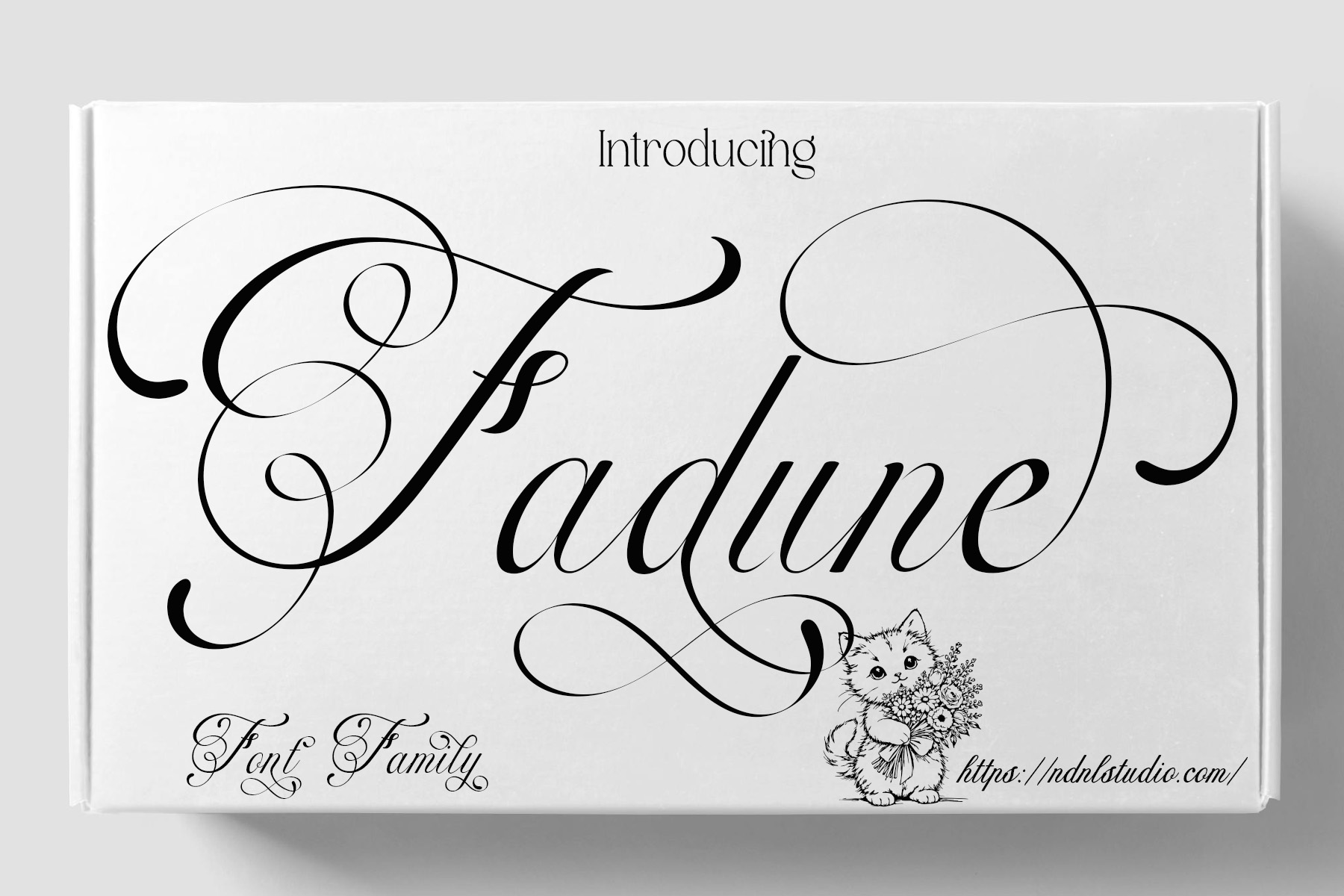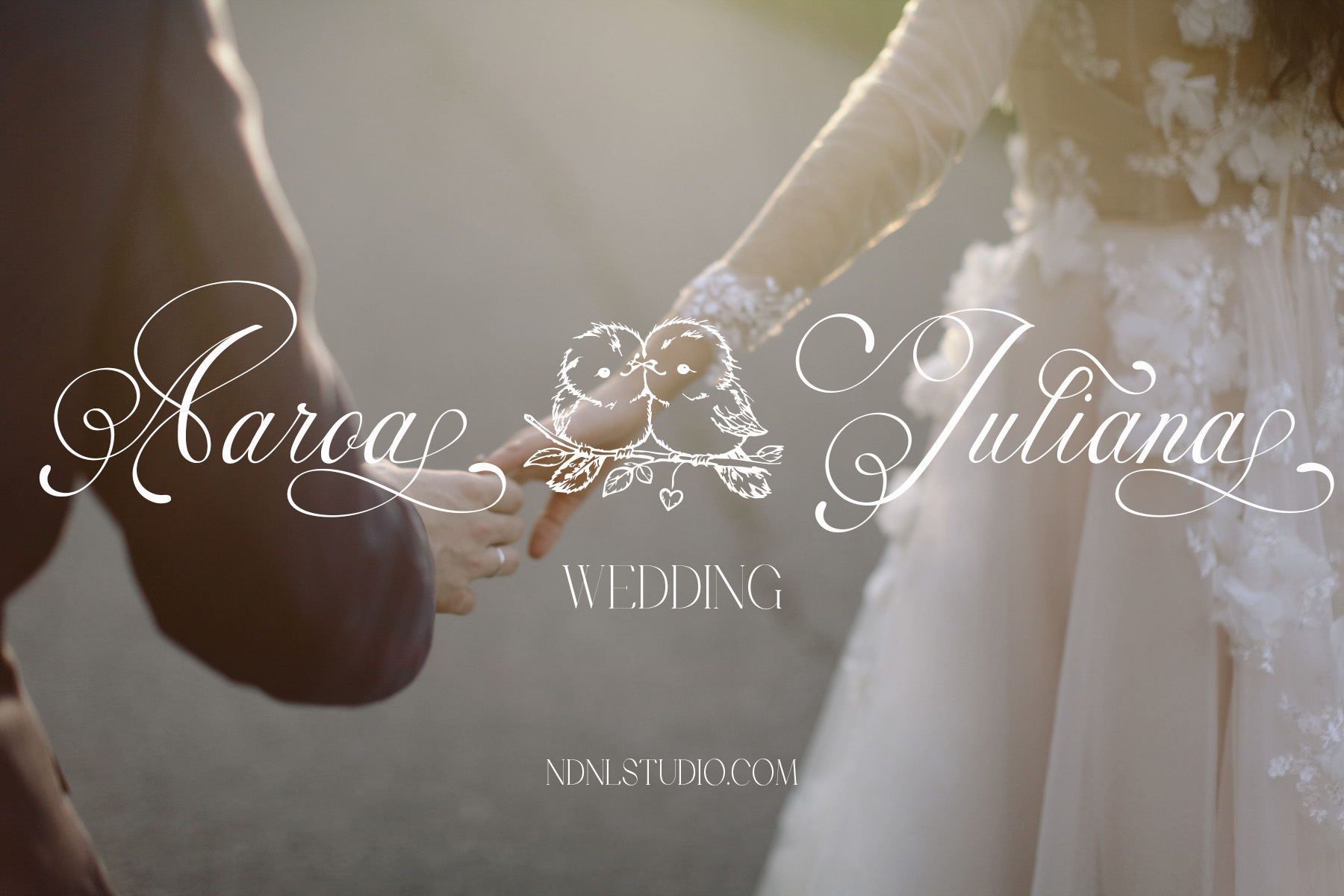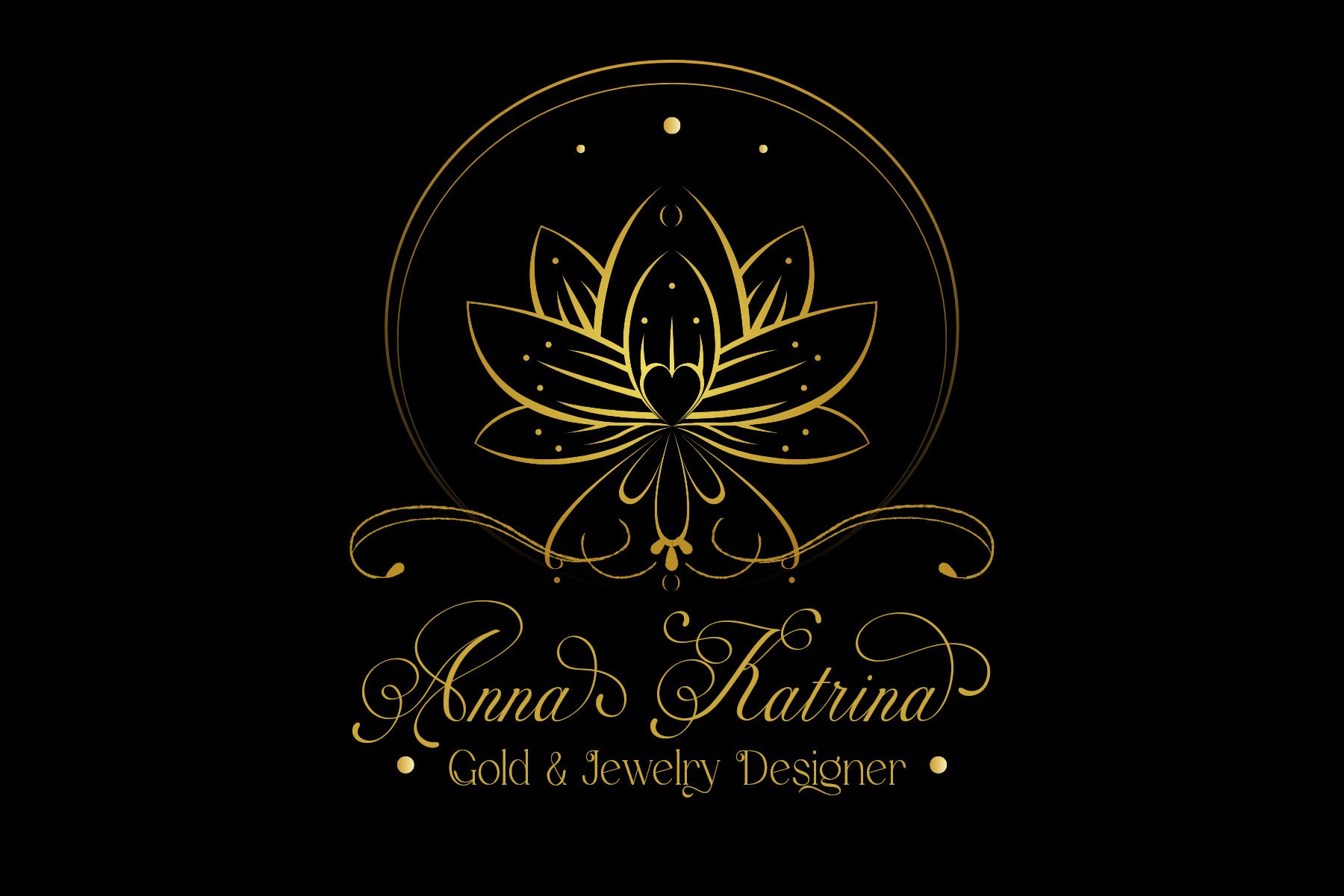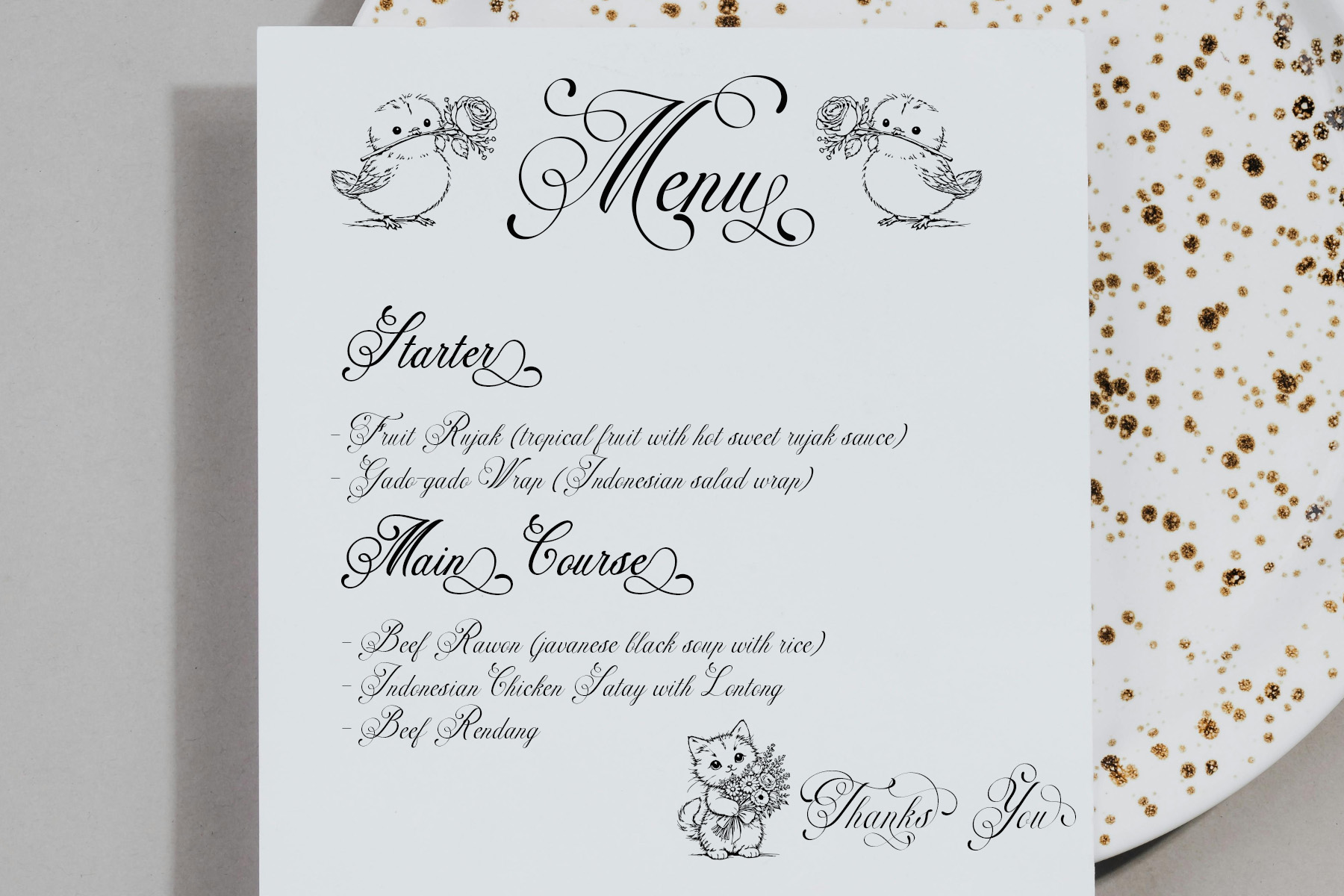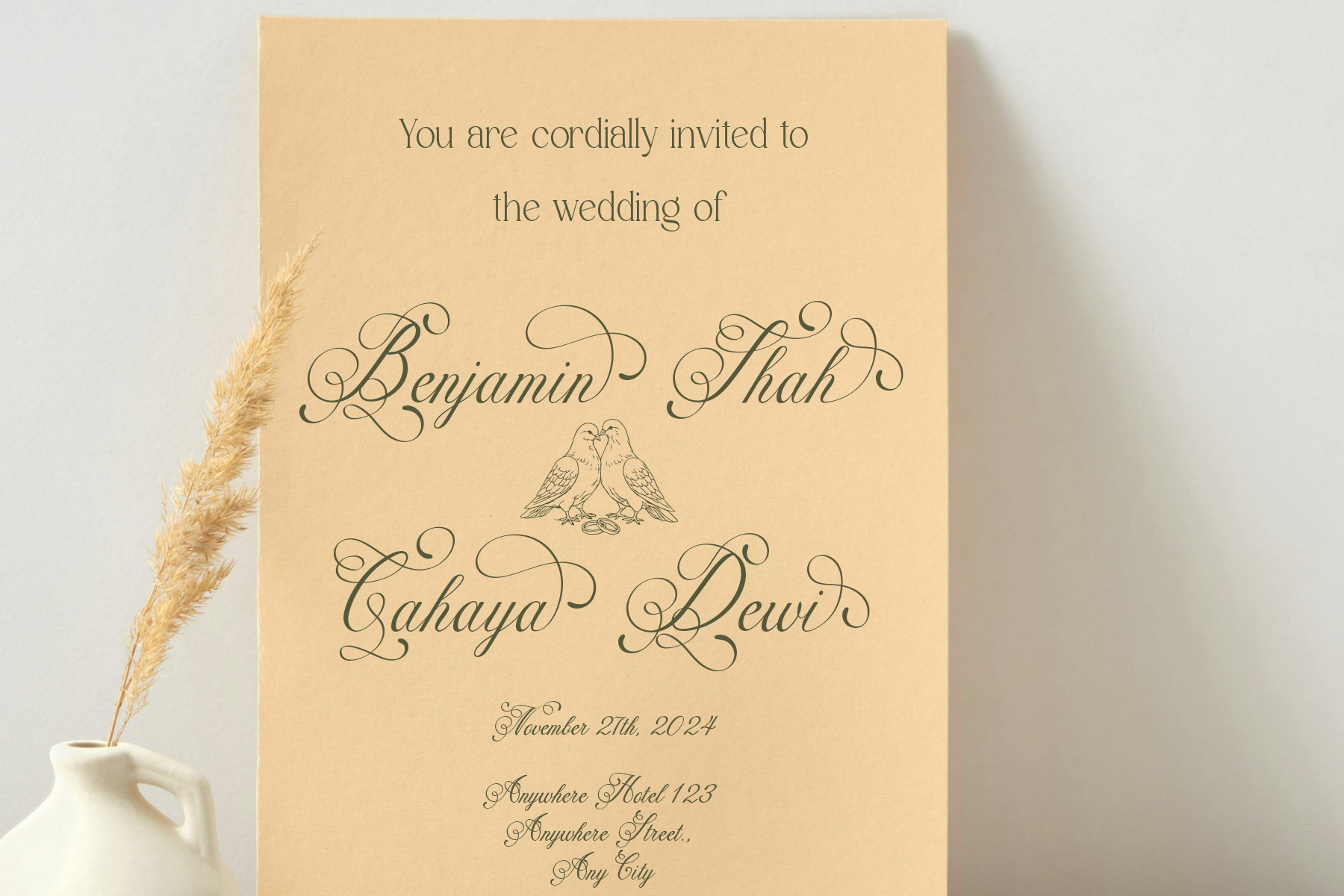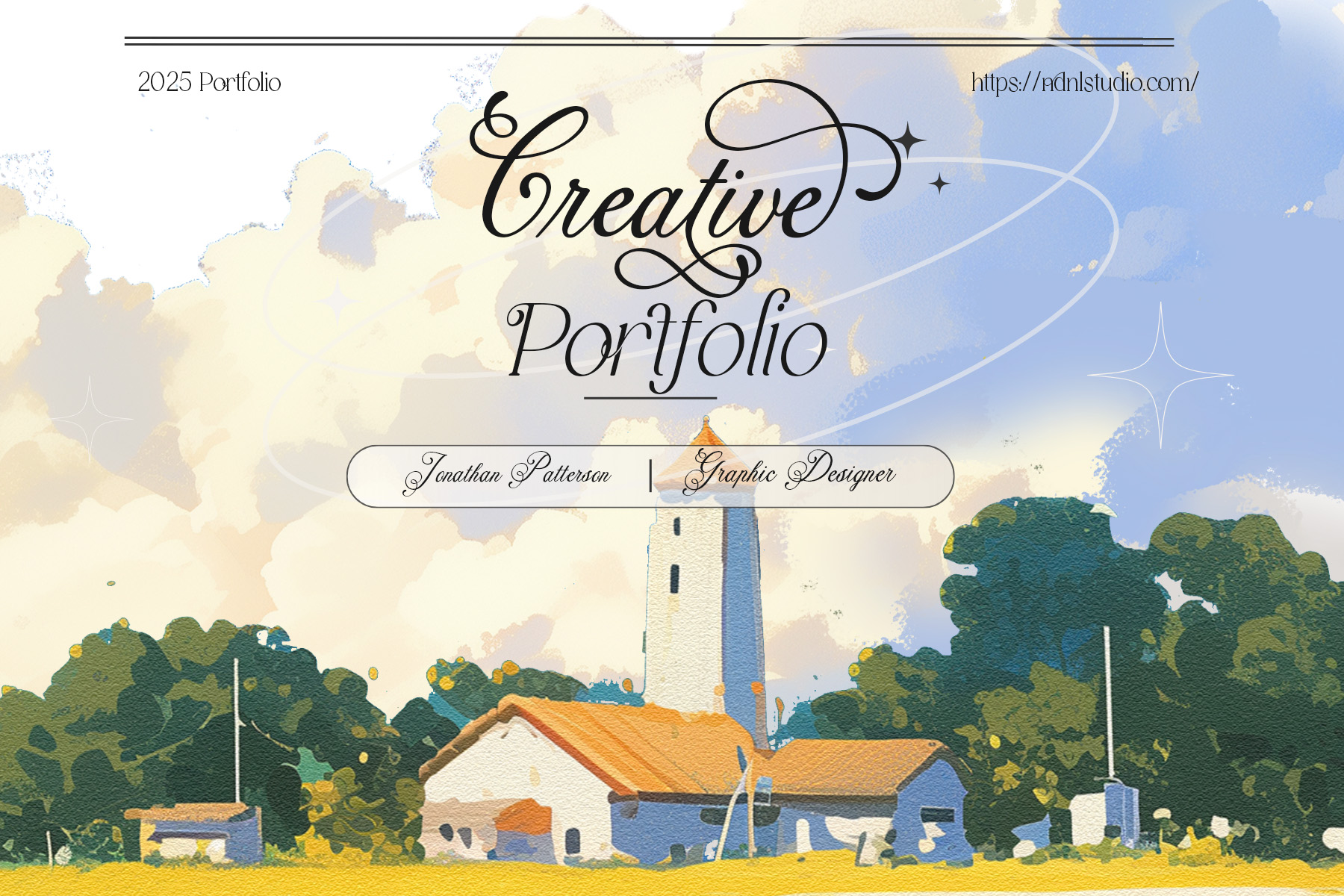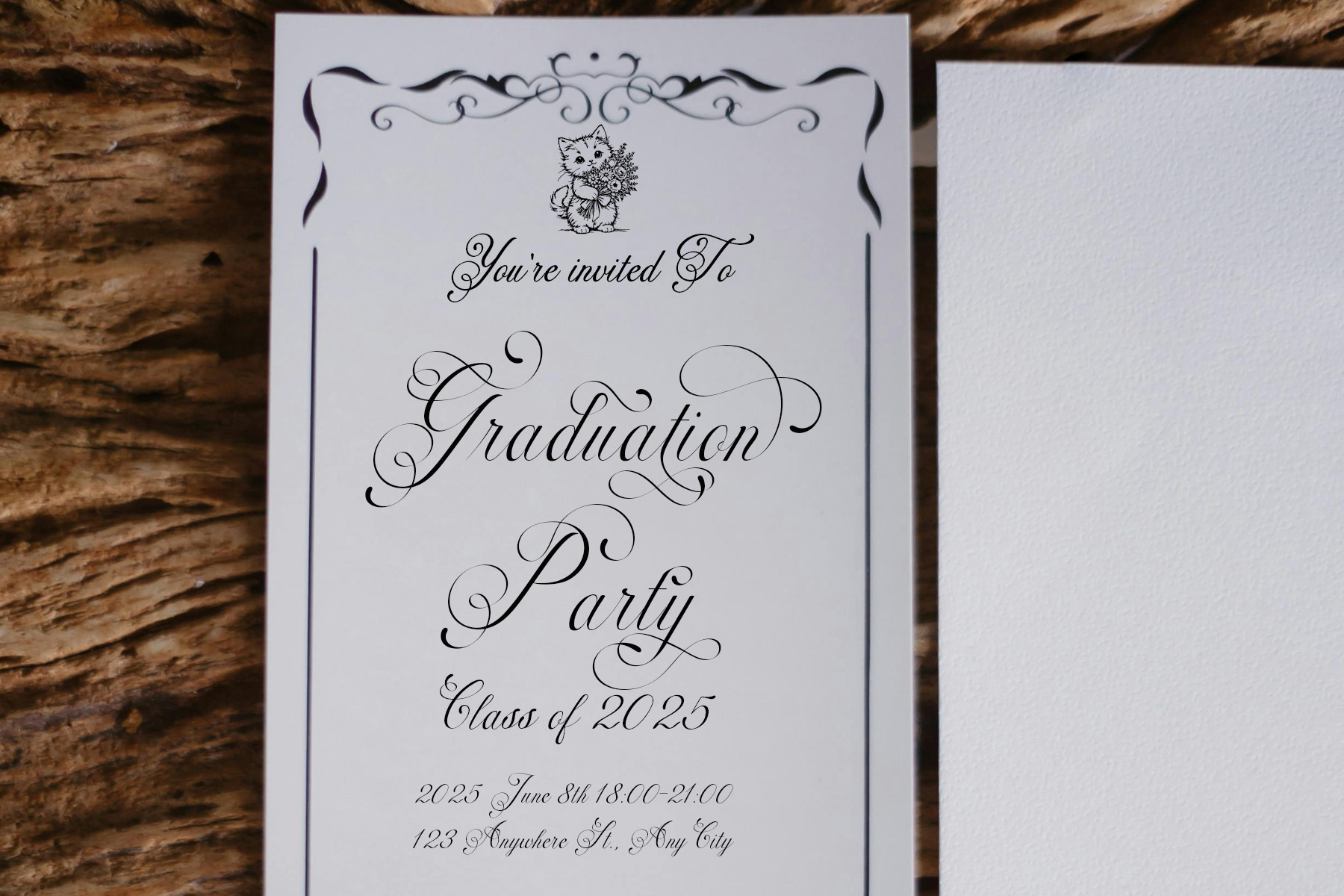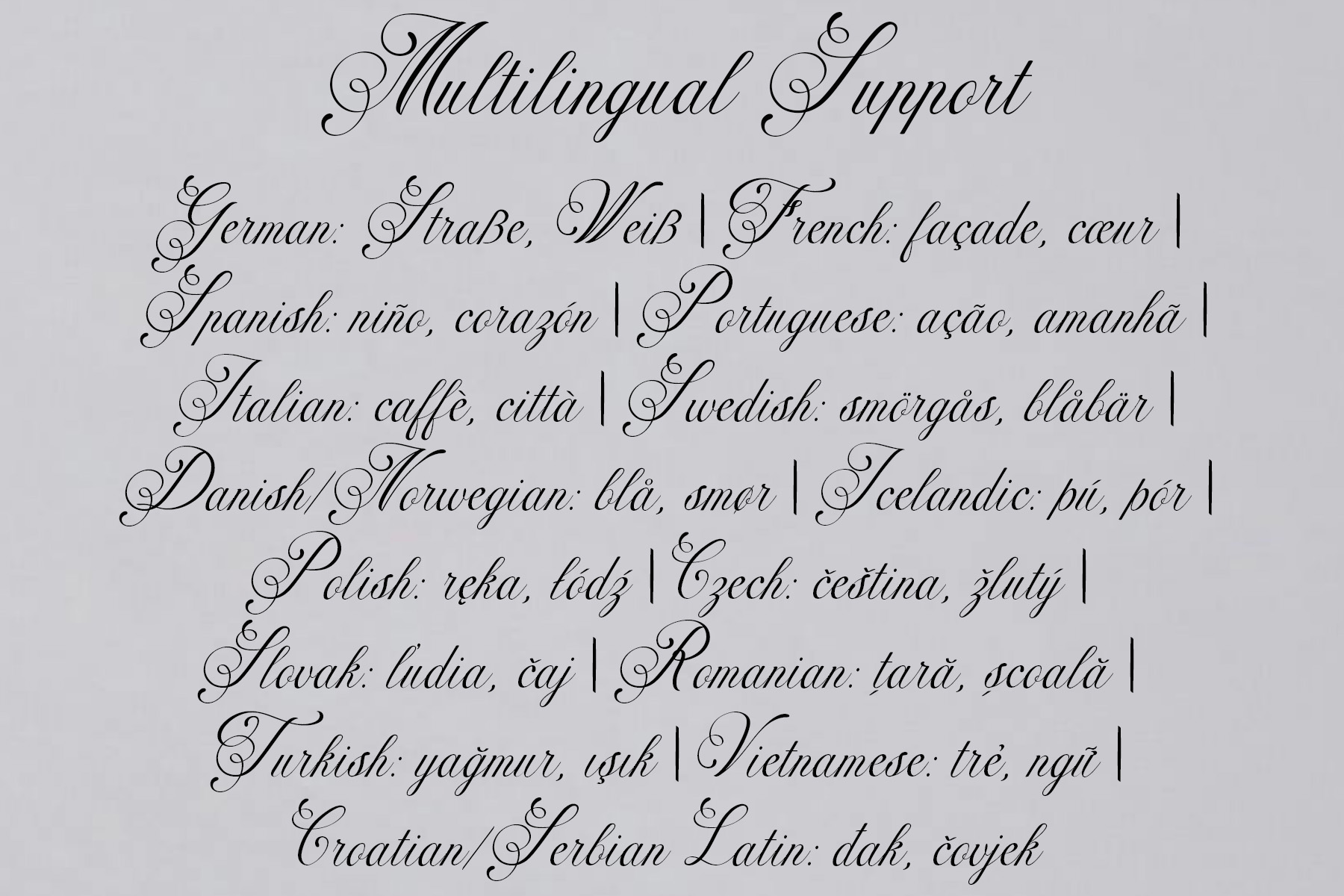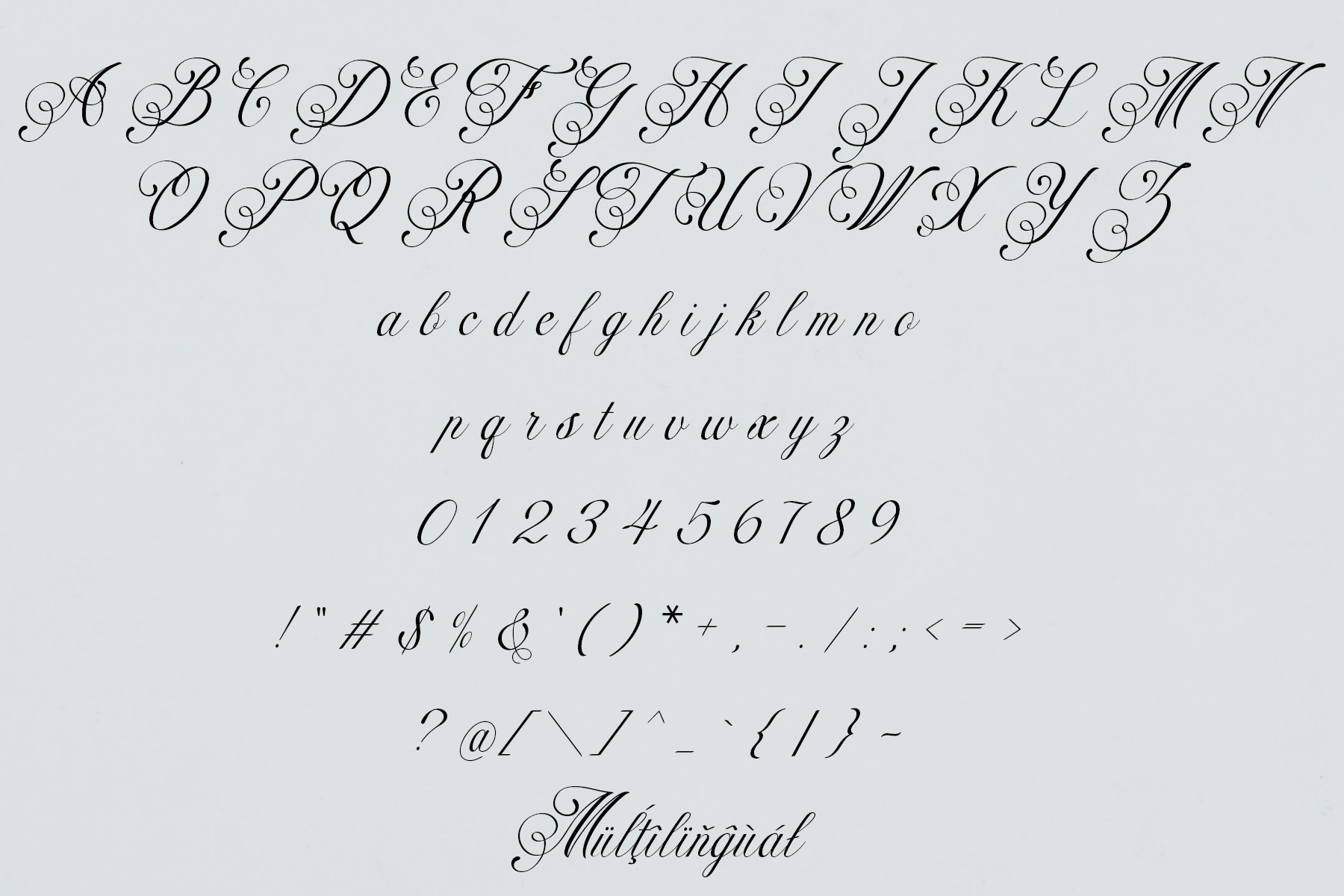
Introducing Fadune!
Fadune is an elegant script typeface inspired by classic and romantic aesthetics. With its flowing strokes and graceful flourishes, the font delivers a refined, sophisticated look while maintaining a soft and expressive character.
Fadune is ideal for high-end and artistic projects such as wedding invitations, branding, logos, packaging, posters, fashion headlines, beauty designs, and decorative layouts with a vintage or romantic style. This typeface brings timeless charm, delicacy, and elegance to every design.